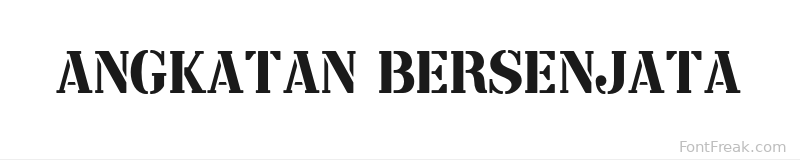
Angkatan Bersenjata
About Angkatan Bersenjata
The Angkatan Bersenjata font, created by Wahyu Eka Prasetya, is a striking display typeface that stands out for its bold and commanding presence. This font falls under the category of serif, characterized by its strong strokes and distinctive serifs, which provide a sense of authority and elegance. With a medium to heavy stroke weight, the font exhibits a balanced contrast that enhances readability while maintaining a visually appealing aesthetic. The spacing is well-considered, allowing for clarity in various applications, making it suitable for both print and digital mediums.
Ideal for a range of creative projects, the Angkatan Bersenjata font shines in applications such as movie posters, where its dramatic flair can capture attention and convey a narrative. It works exceptionally well for restaurant menus, providing a sophisticated touch that elevates the dining experience. Wedding invitations can benefit from this font's elegant serif features, offering a classic yet modern vibe that resonates with couples looking for unique design elements. Additionally, small business branding can leverage this font to establish a strong visual identity that communicates trustworthiness and professionalism.
Targeted at graphic designers, small business owners, and content creators, the Angkatan Bersenjata font is a versatile choice that allows for creative expression without compromising on style. Its unique characteristics make it a valuable addition to any designer's toolkit.
What sets the Angkatan Bersenjata font apart is its perfect blend of strength and elegance, making it an ideal choice for projects that require both sophistication and impact. With the Angkatan Bersenjata font free download available, designers can easily incorporate this distinctive typeface into their work, enhancing their projects with its remarkable visual appeal.